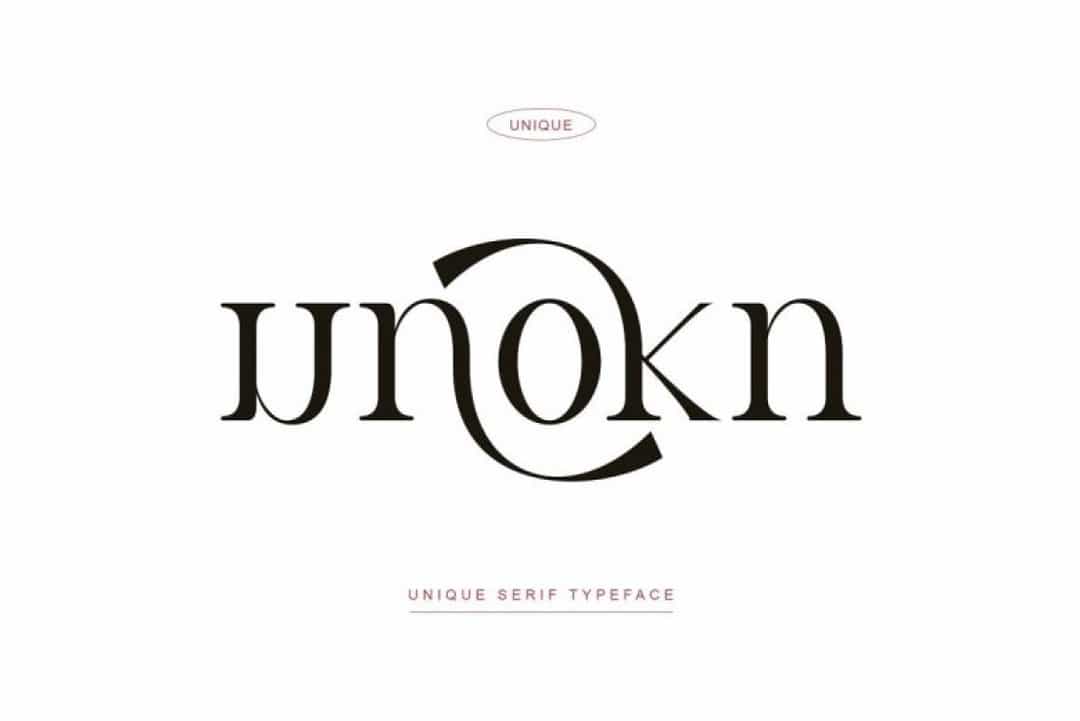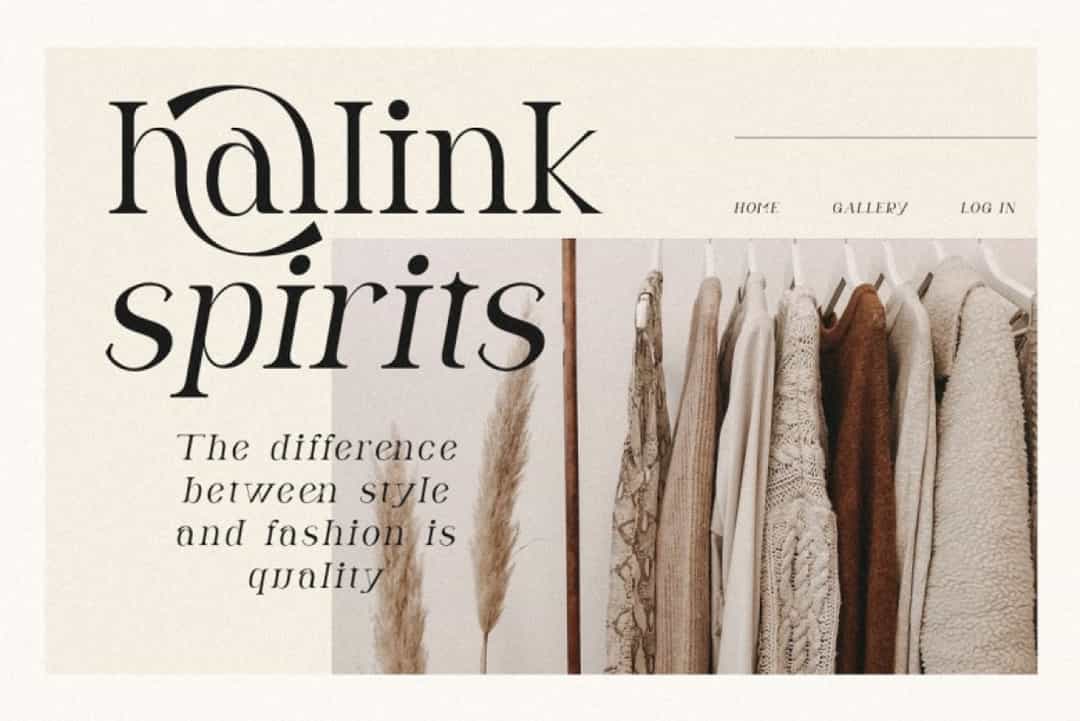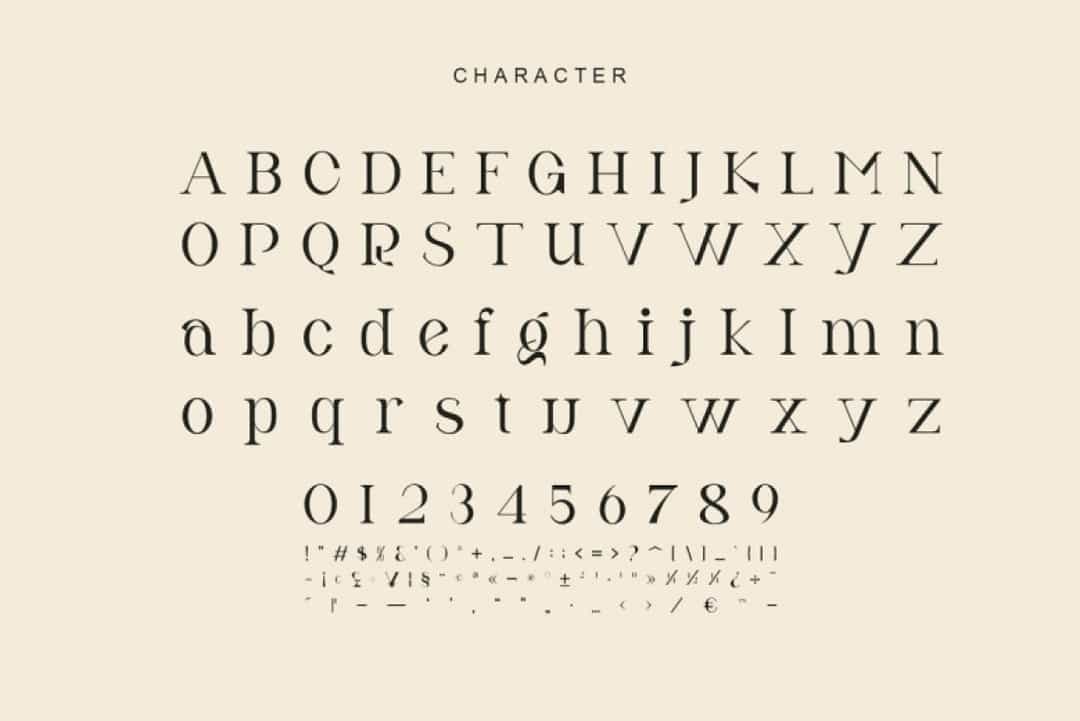
Unokn is an elegant modern serif typeface with timeless appeal, perfect for logos, magazines, social media posts and more. Perfectly suitable for magazine logos and magazine layouts alike; use Unokn for your next design project!